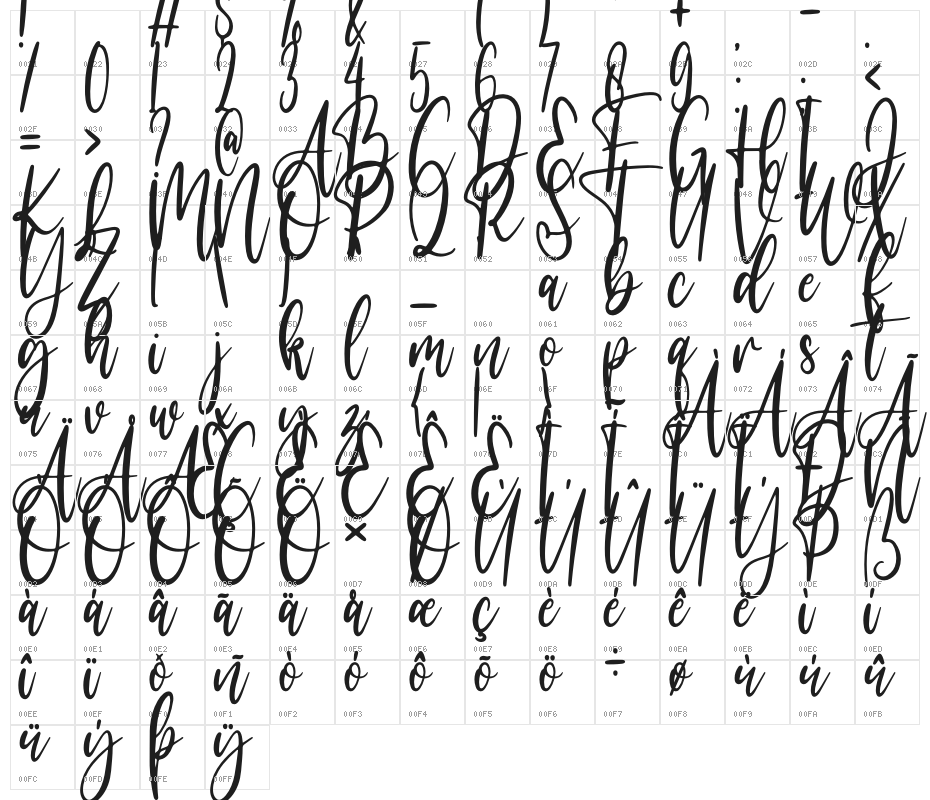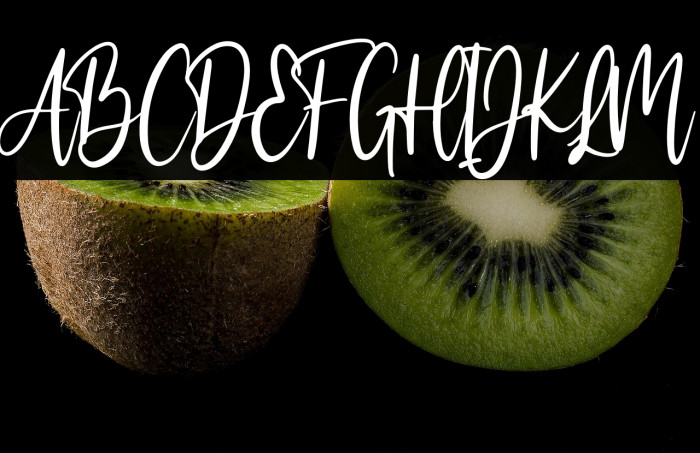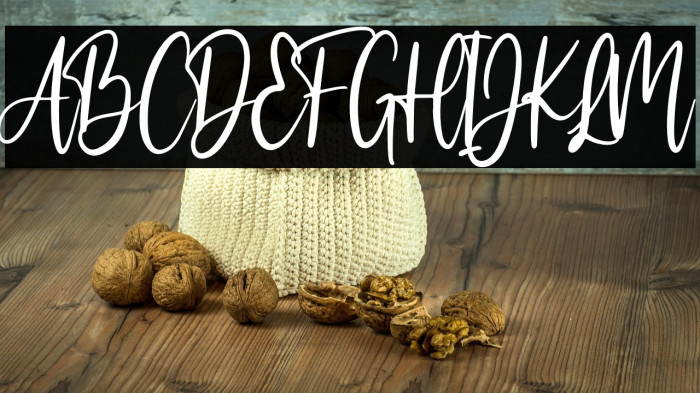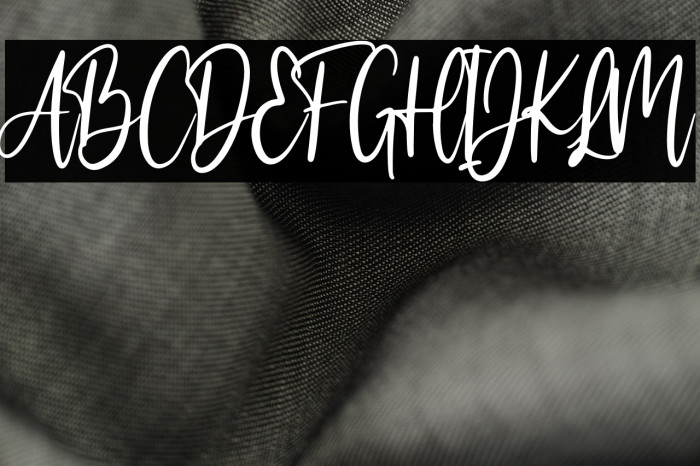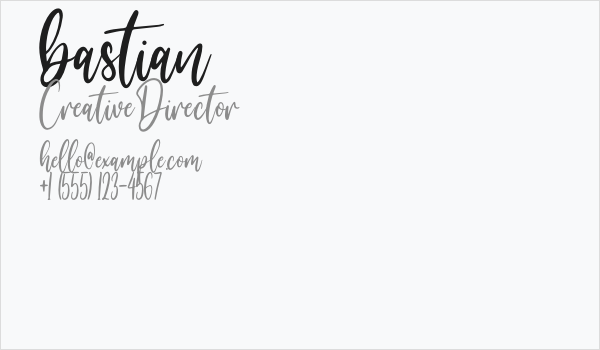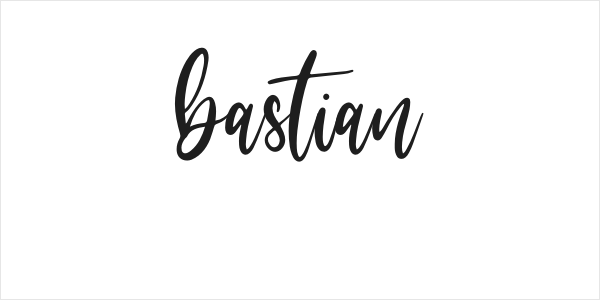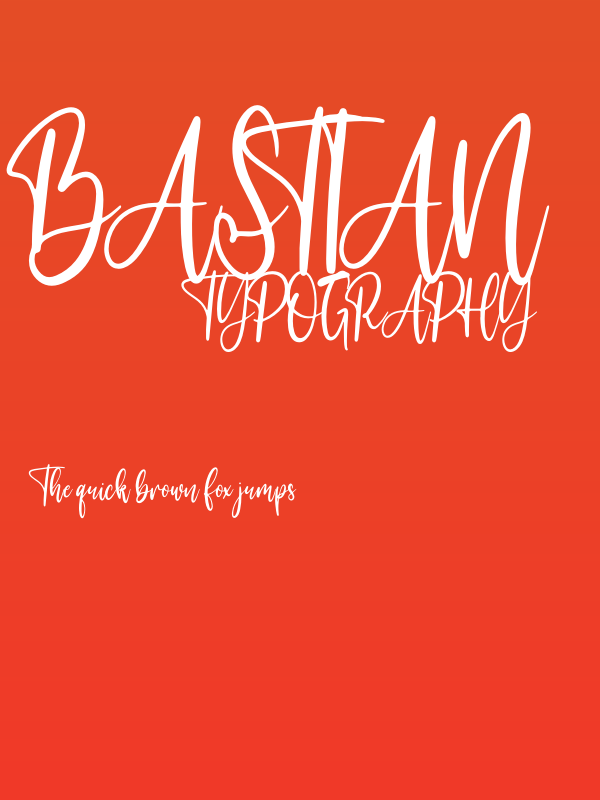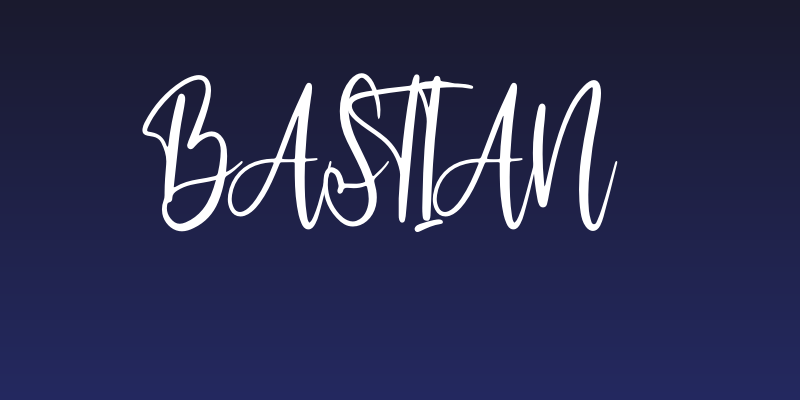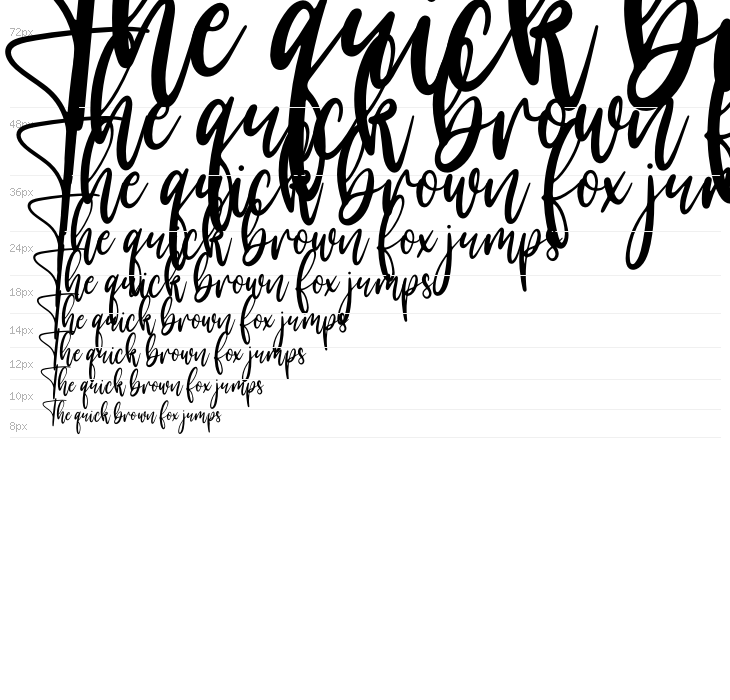
bastian Font
bastian Description
This font exhibits a dynamic and flowing script style, characterized by its elegant and cursive letterforms. The uppercase letters are tall and slender, with sweeping curves and loops that convey a sense of motion and grace. The lowercase letters maintain a consistent flow, with smooth connections between characters, enhancing readability while preserving the artistic flair. Numbers and special characters are designed to match the overall aesthetic, featuring similar curves and strokes. This font is ideal for projects that require a personal touch, such as invitations, greeting cards, or branding materials that aim to convey elegance and sophistication.
| Proposed Projects | Ideal for wedding invitations, greeting cards, personal branding, and elegant packaging designs. |